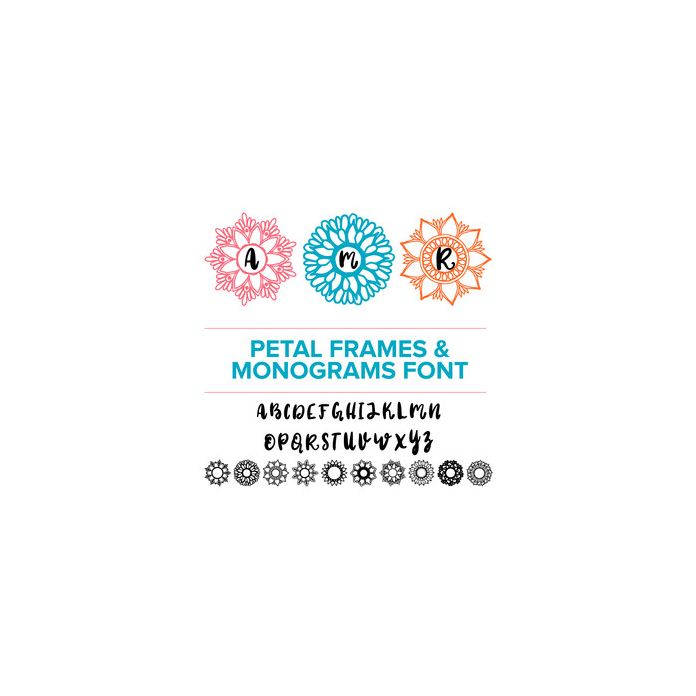
This font comes with uppercase letters A-Z the correspond with A-Z and a-z on your keyboard. 0-9 correspond with a beautiful petal monogram frame. This is in OTF format.